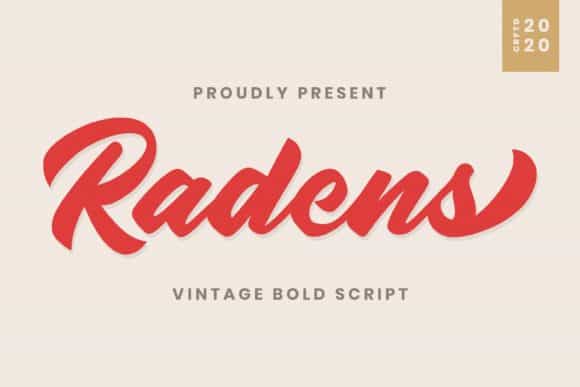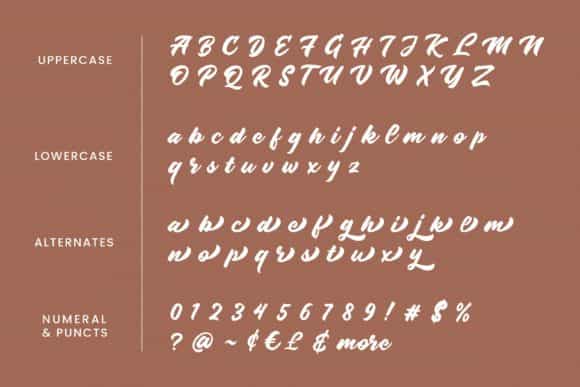
Radens Bold Script Font
Discover Radens Bold Script Font, part of the  Commercial  Retro Script  Vintage collection—a versatile and unique font perfect for adding a personal touch to your projects. Download it for free and enjoy crafting designs with style, from invitations to social media posts. This font is available exclusively for personal use, giving you the freedom to create without limits. Unlock your creativity with Radens Bold Script Font today!
On the hand Radens exudes a charm and offers a remarkable vintage look. Incorporate it into your designs to infuse that nostalgic retro vibe, into any concept you have in mind! This crafted script font is definitely a must have addition.